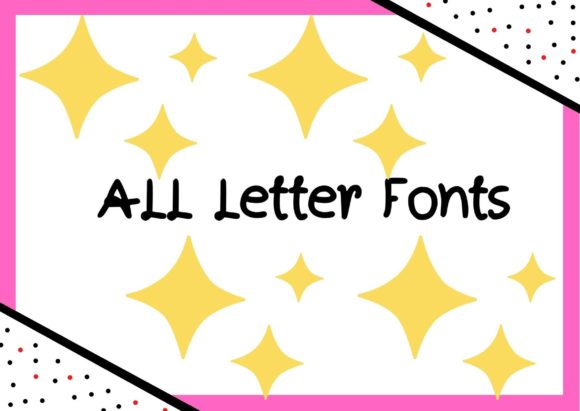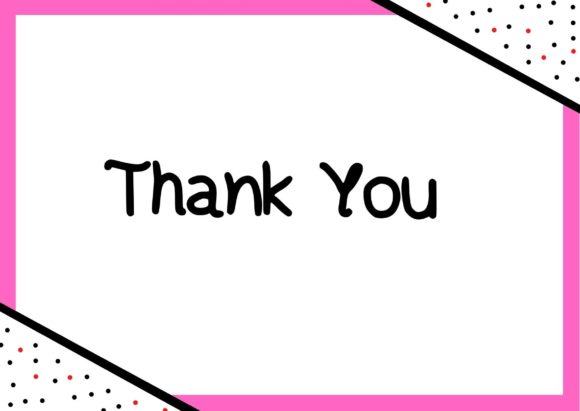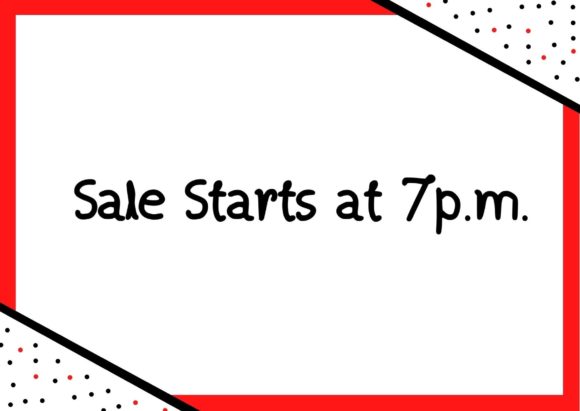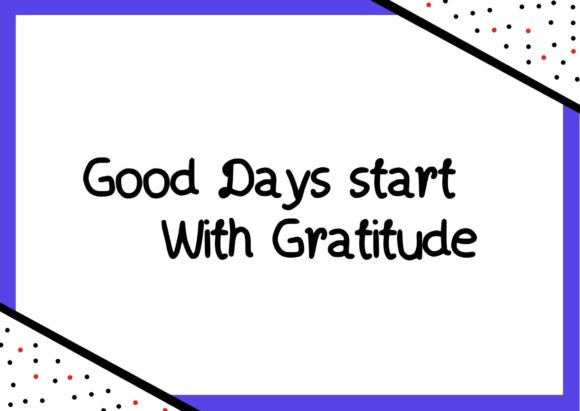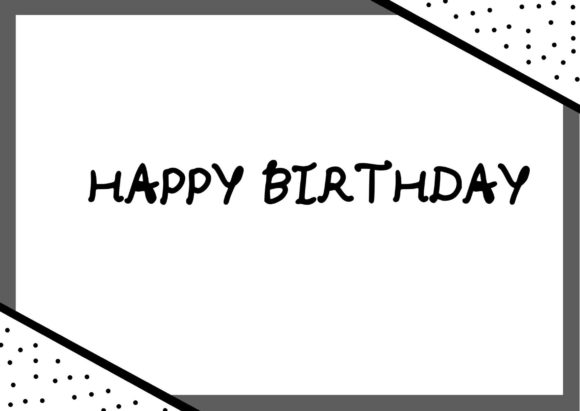
All Letter Style Font
All Letter Style is a simple lettered handwritten font that can be used for all chalkboard quotes or teaching material! Its authentic look will add a personal and realistic feel to your designs.